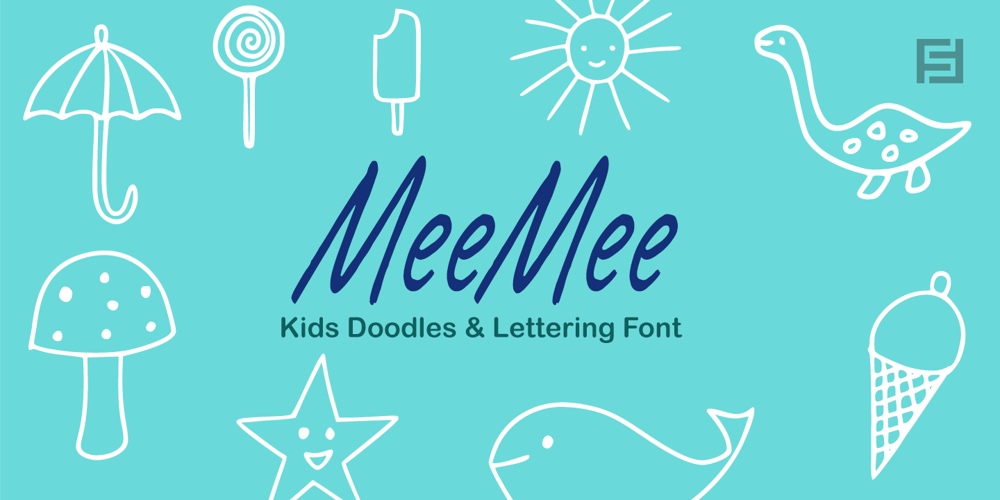
Mee Mee Kids Font Family was designed by Lisha Joseph and published by Designova. Mee Mee Kids contains 2 styles and family package options. MeeMee is a typeface containing 72 handmade kids doodles and a lovely handwritten kids lettering font. MeeMee typeface comes with 2 fonts: Kids Doodles Font (72 handmade kids Doodles / Symbols / Icons) Kids Lettering Font (Kids Hand-lettering with 598 Glyphs) The typeface is perfect for kid-friendly designs, kids room posters, kids graphics & wallpapers, kids product branding, logotype, decorations, signage, greeting cards, promotional designs, and anything that needs the lovely cute kid-friendly look.Advanced Kerning & Extended Character Sets:We have performed advanced, in-depth kerning to make sure the font looks amazing on all possible letter combinations. The font includes extended language support including Western European & Central European sets with a total of 598 glyphs.